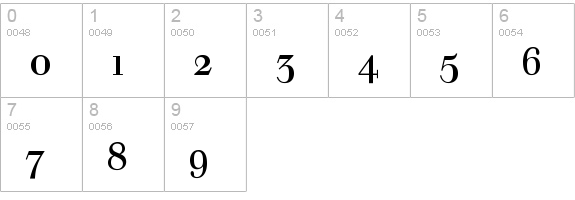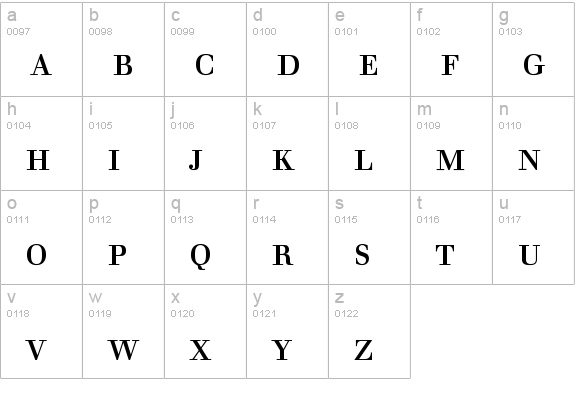
Walbaum Buch Exp Regular Font Details
Walbaum Buch Exp Regular is the standard, neutral variant in the Walbaum typeface family \xE2\x80\x94 well suited to general body text, paragraphs, and standard typographic work.